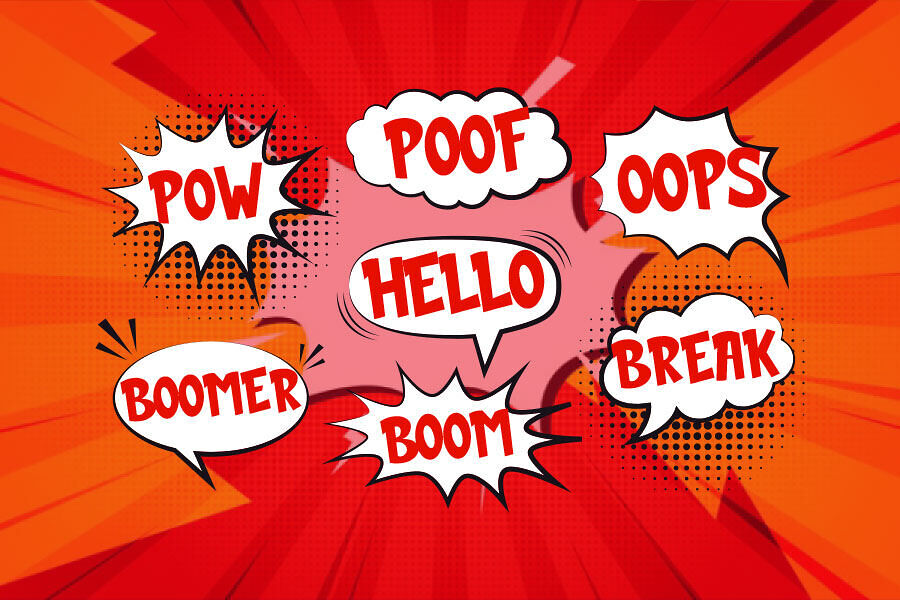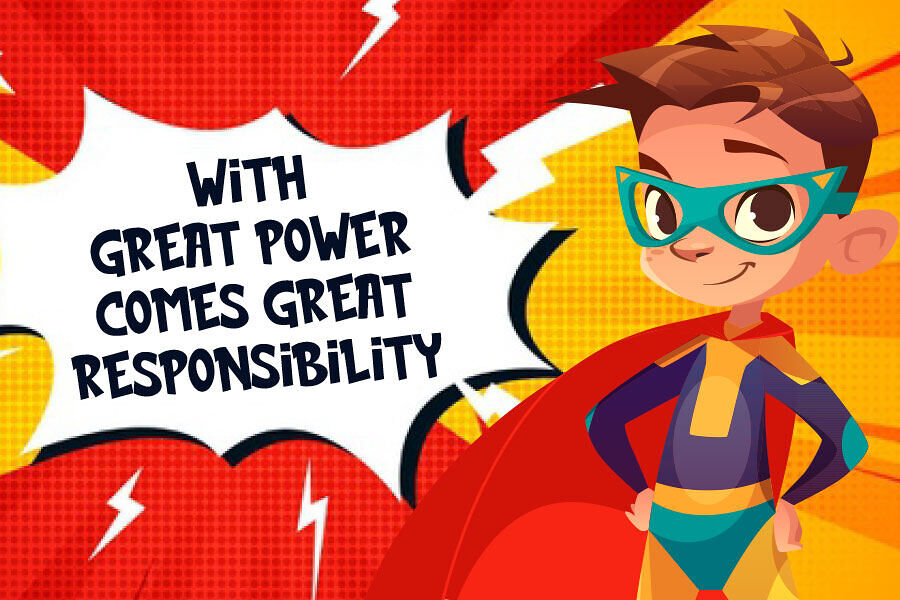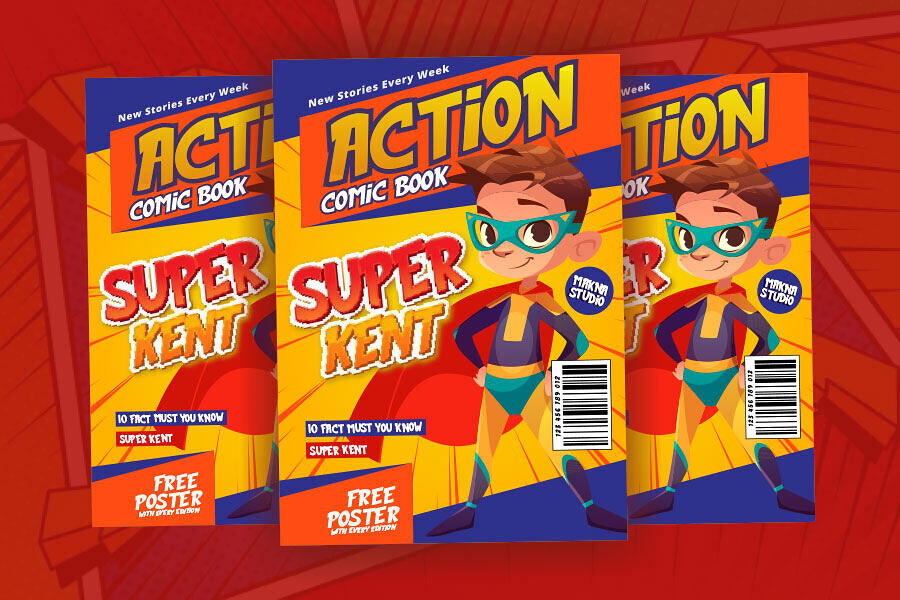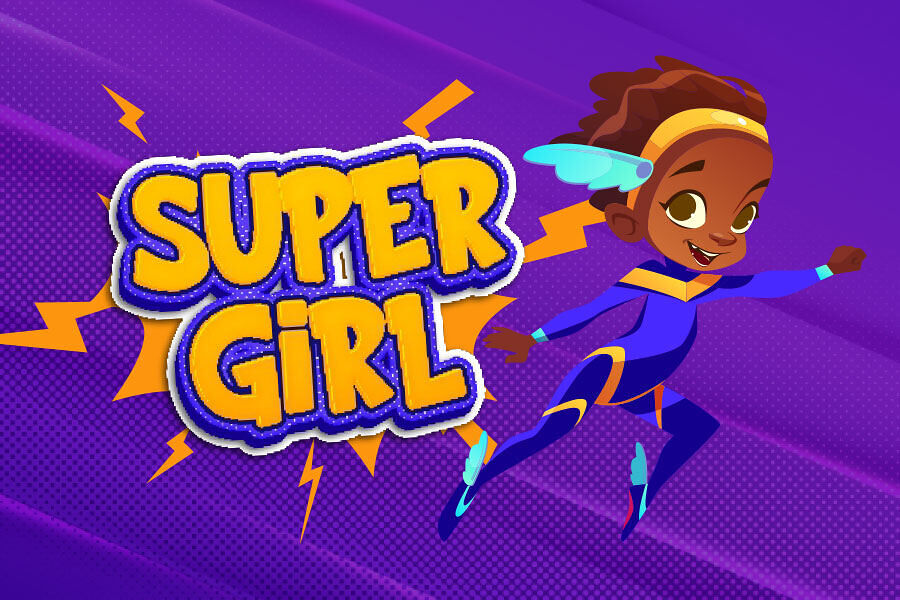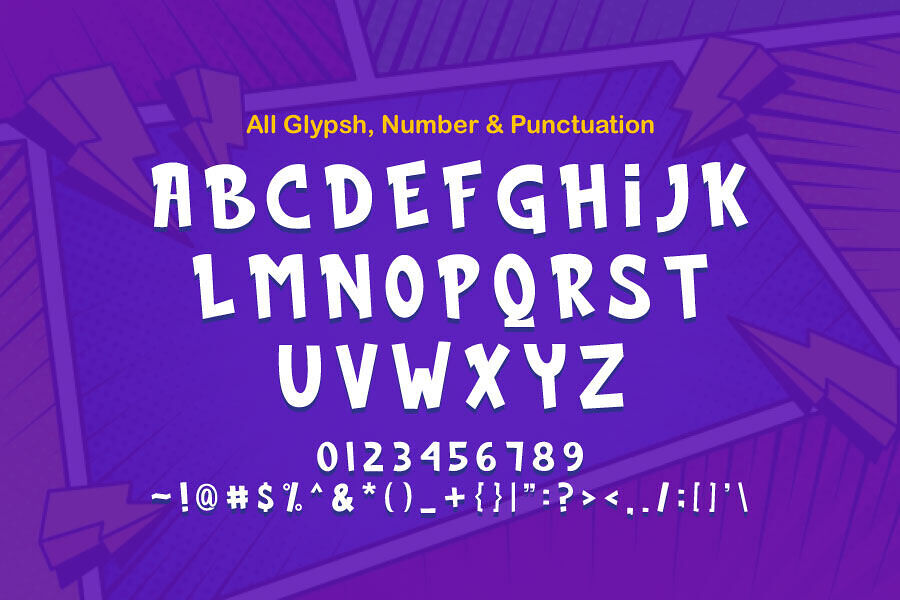
Brick Comic is a vibrant cartoon-themed font designed for projects like comic books, children’s storybooks, and kid-friendly games. Its bold, playful style perfectly suits superhero themes, making it an ideal choice for creating engaging, dynamic visuals. This cool cartoon font is one of the best for comic book designs.